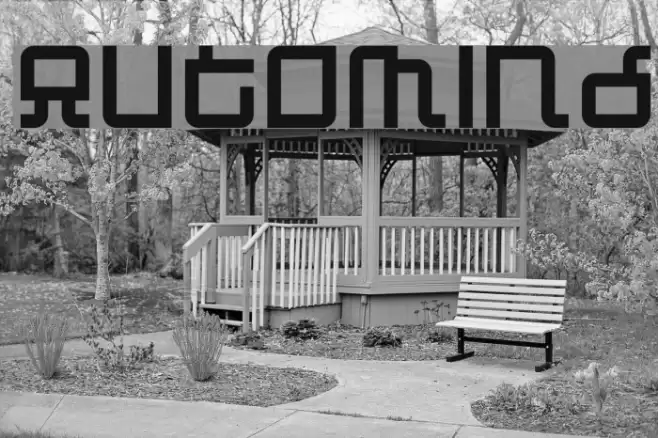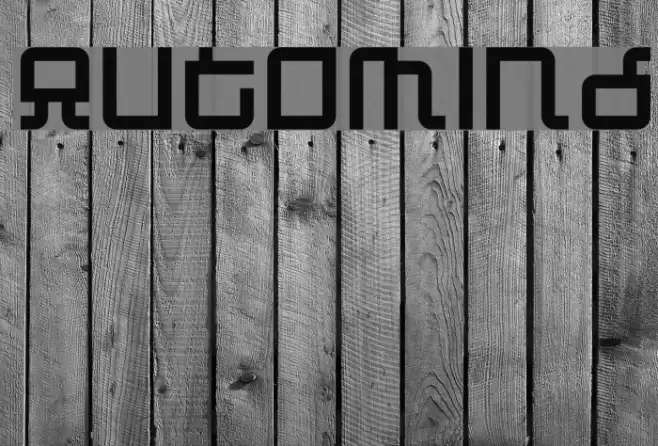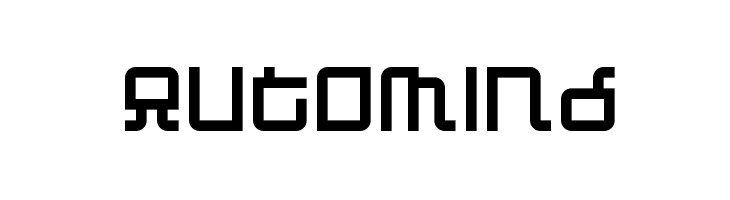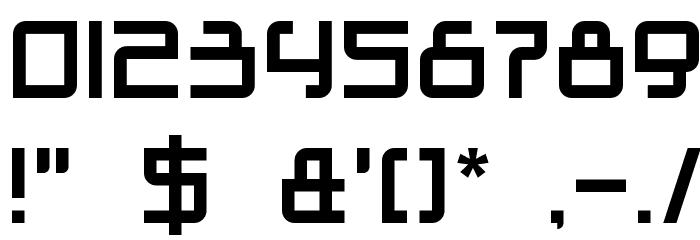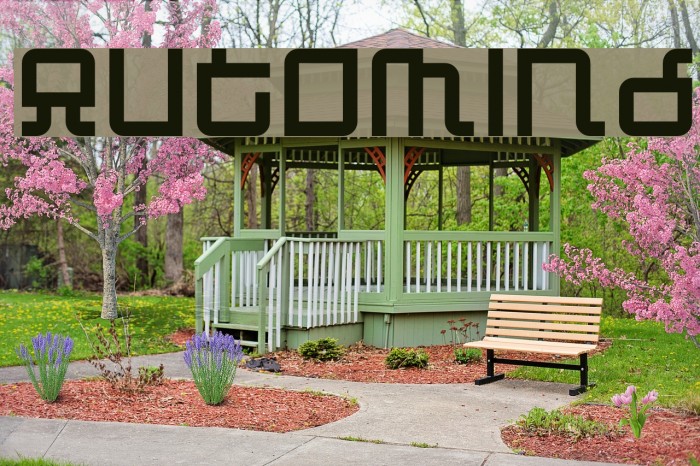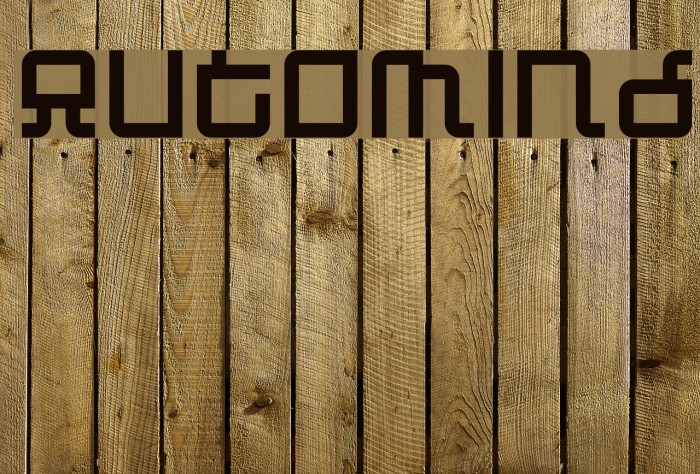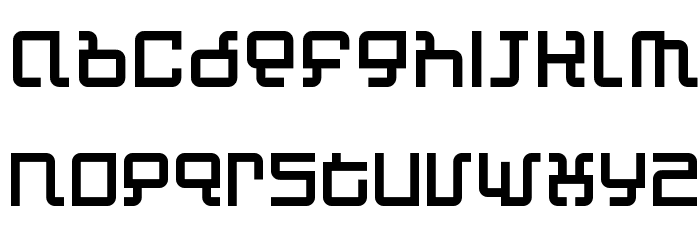
Automind Font
Automind Description
This font features a futuristic and geometric design, characterized by its bold and structured letterforms. The characters are composed of straight lines and sharp angles, giving it a mechanical and digital appearance. The uppercase and lowercase letters maintain a consistent style, with a uniform stroke width that enhances its modern aesthetic. The numerals and special characters follow the same design principles, ensuring a cohesive look across all glyphs. This font's unique style makes it stand out, ideal for projects that require a contemporary and tech-inspired feel.
A futuristic, geometric font with bold, structured letterforms from Futuristic fonts.
- Proposed Projects: Ideal for technology branding, digital interfaces, video game titles, and sci-fi themed designs.